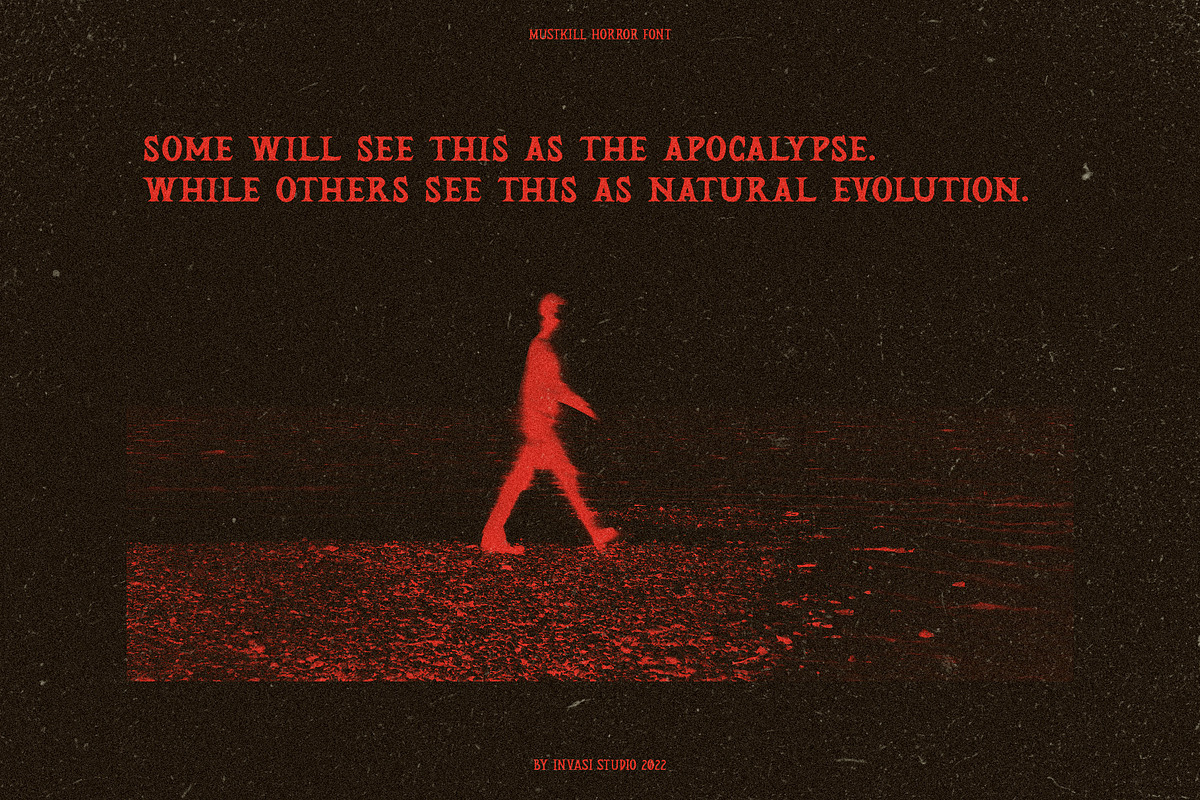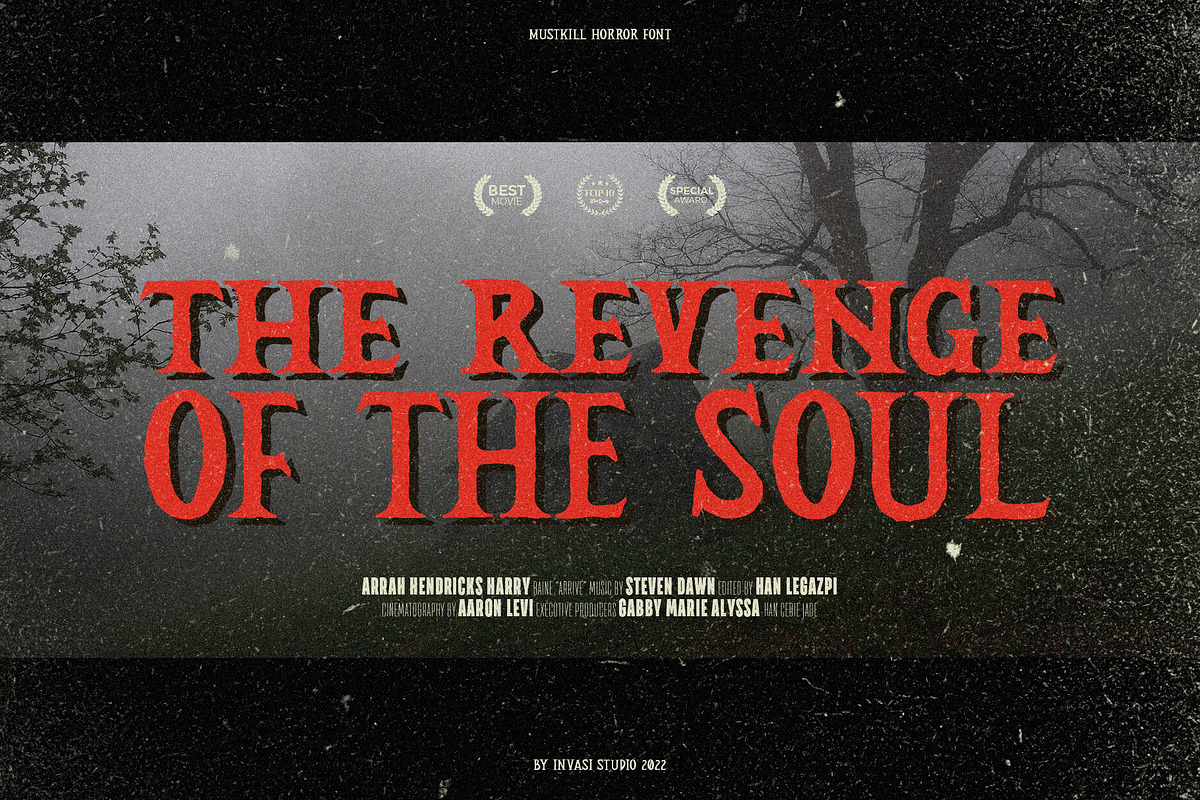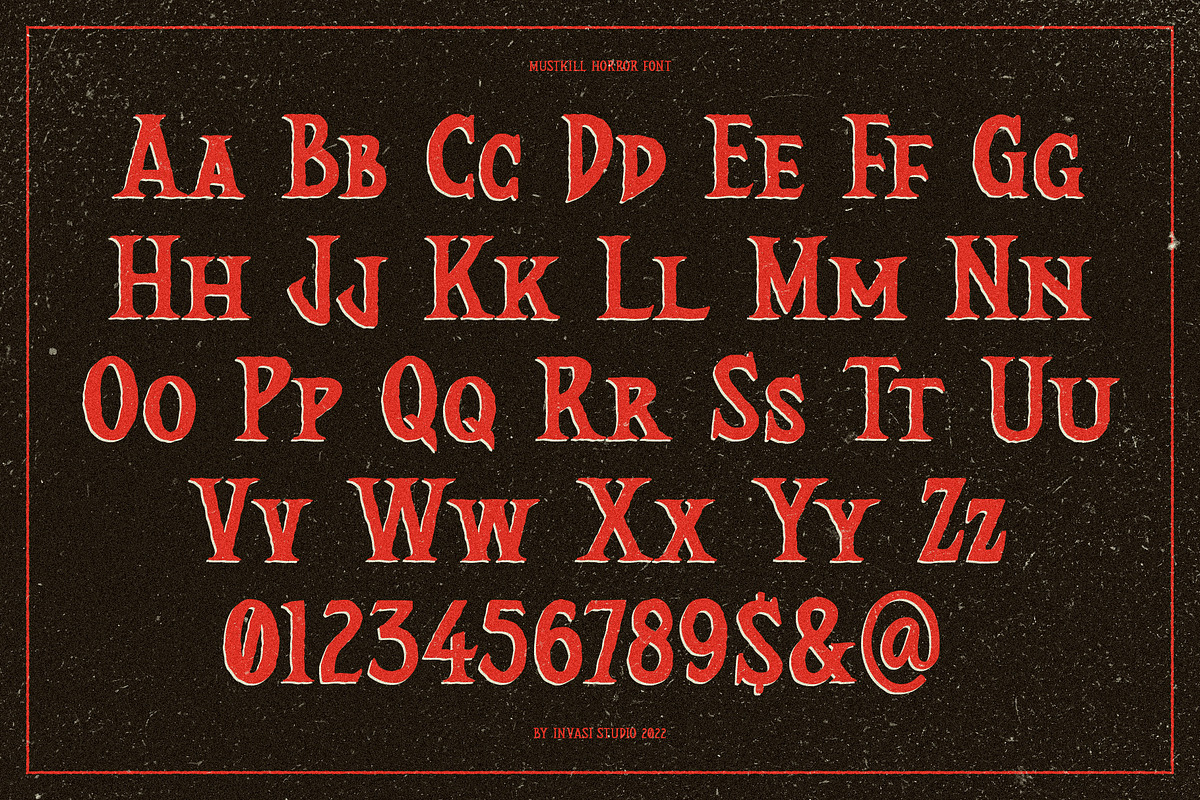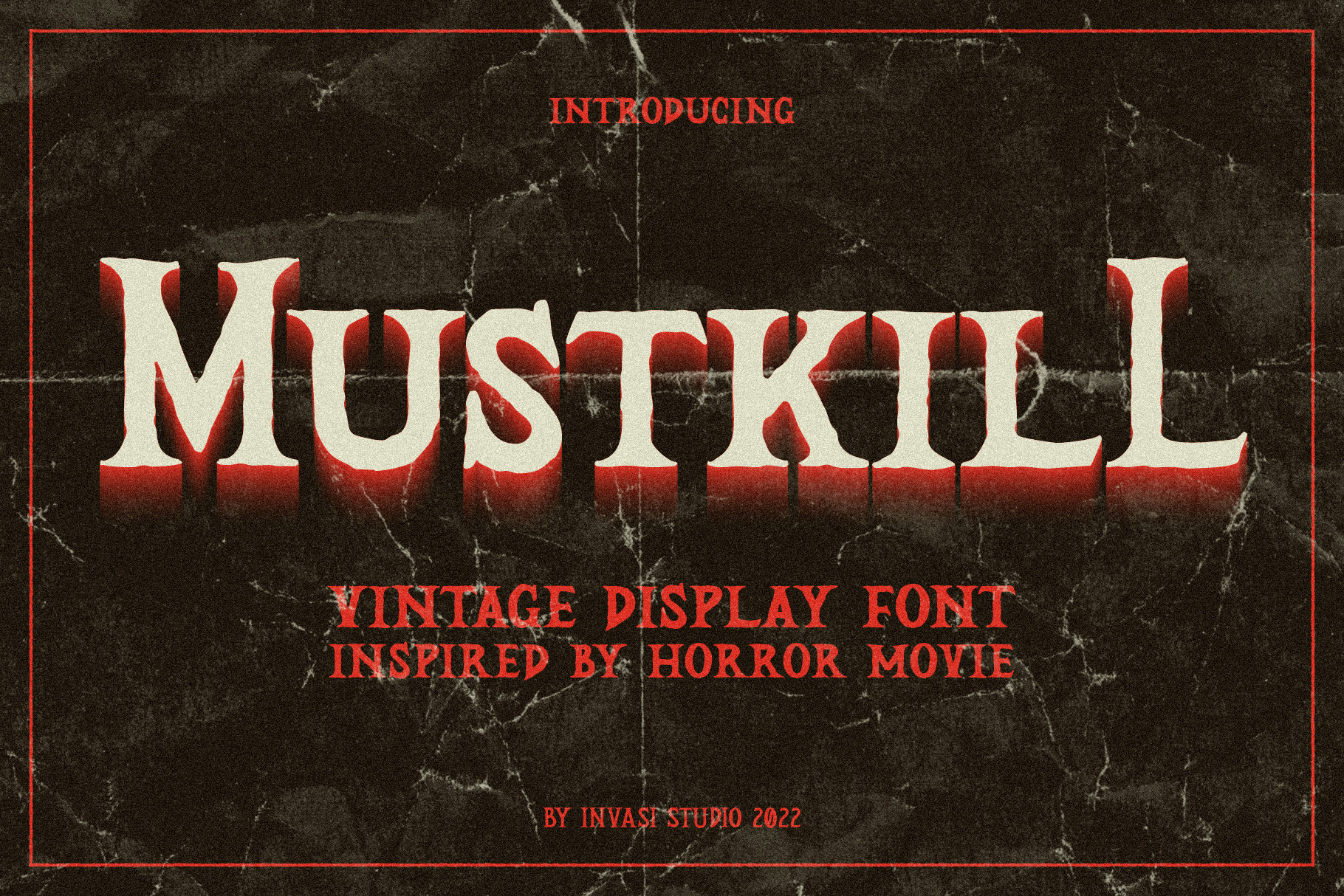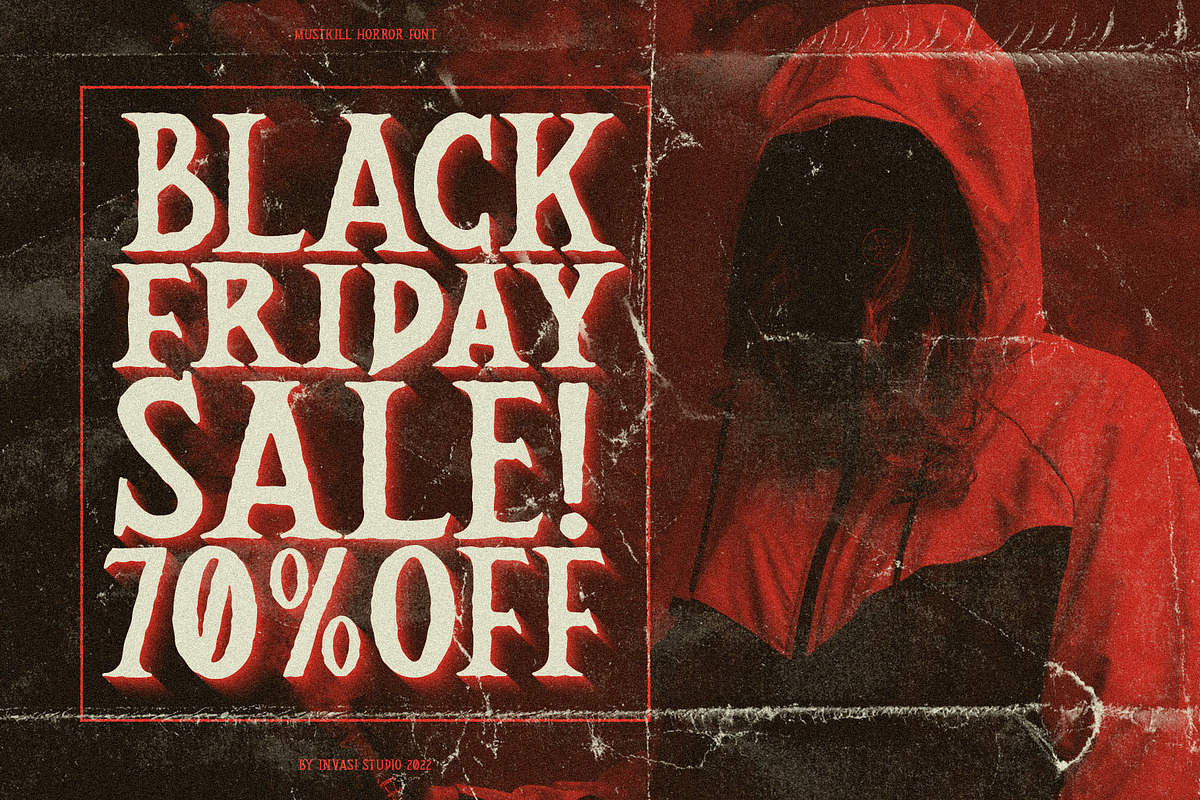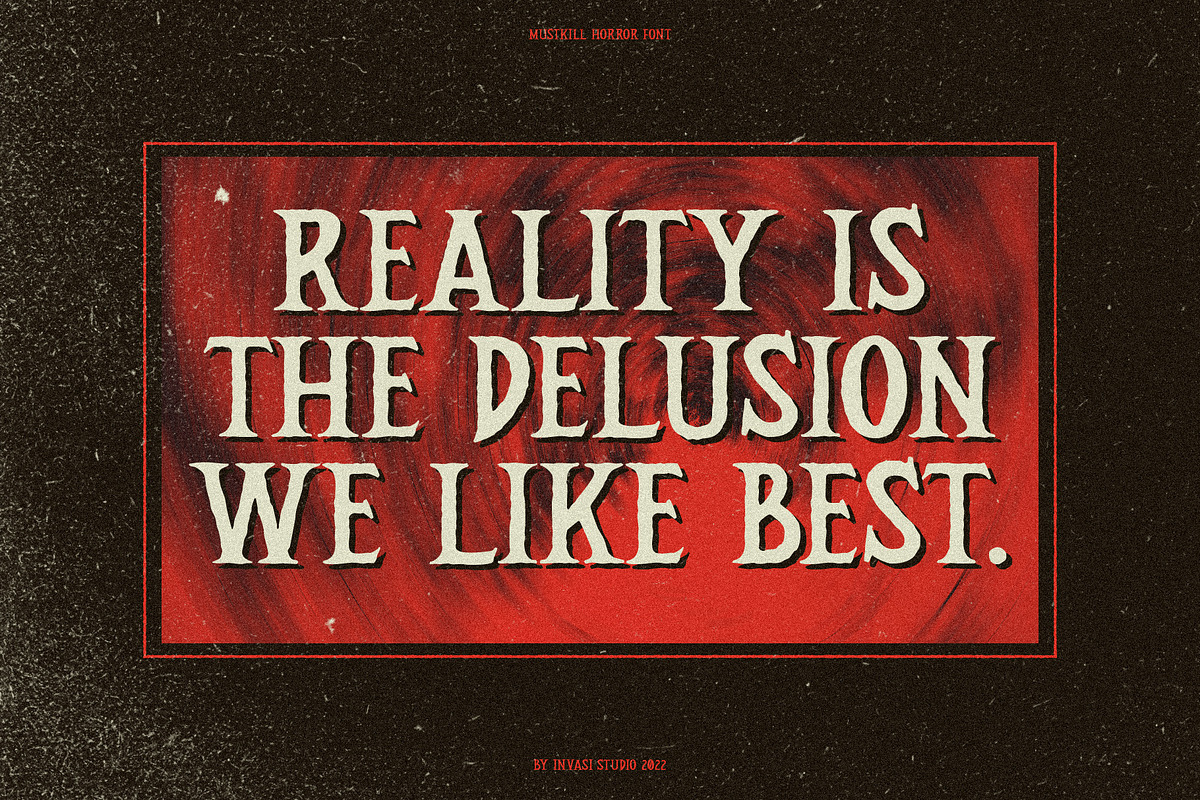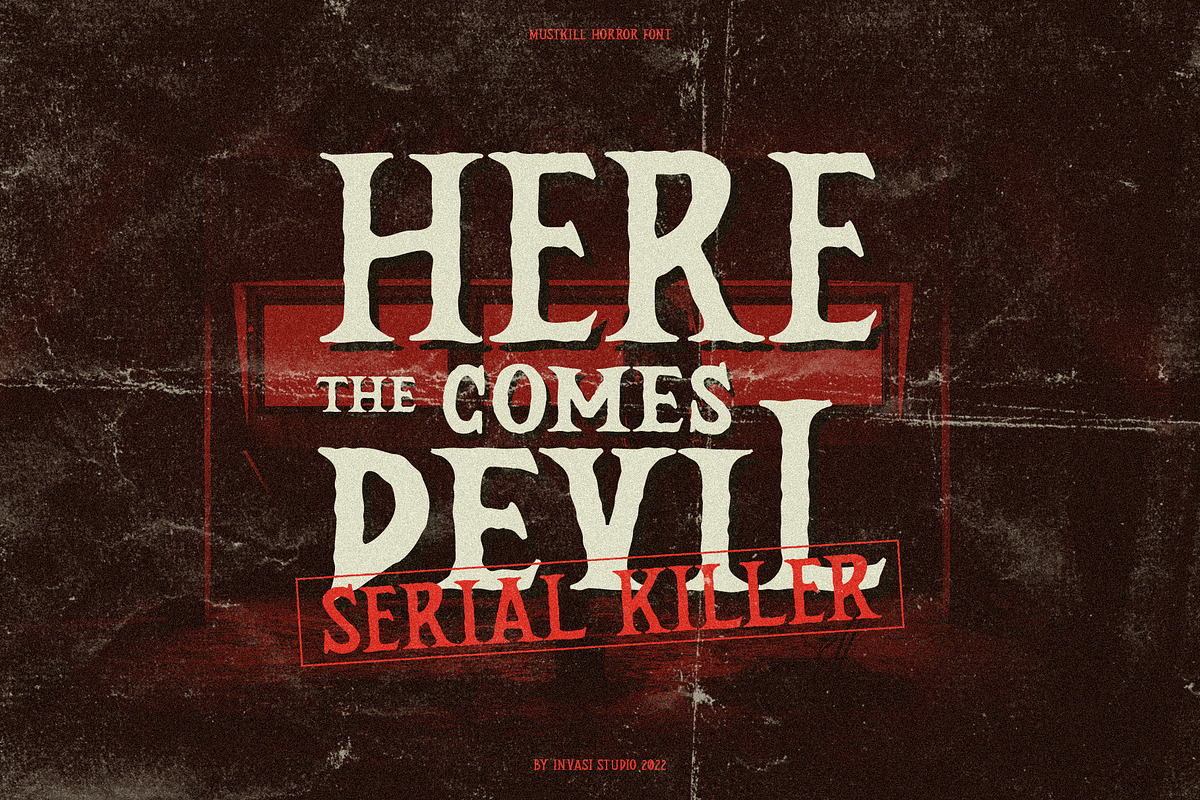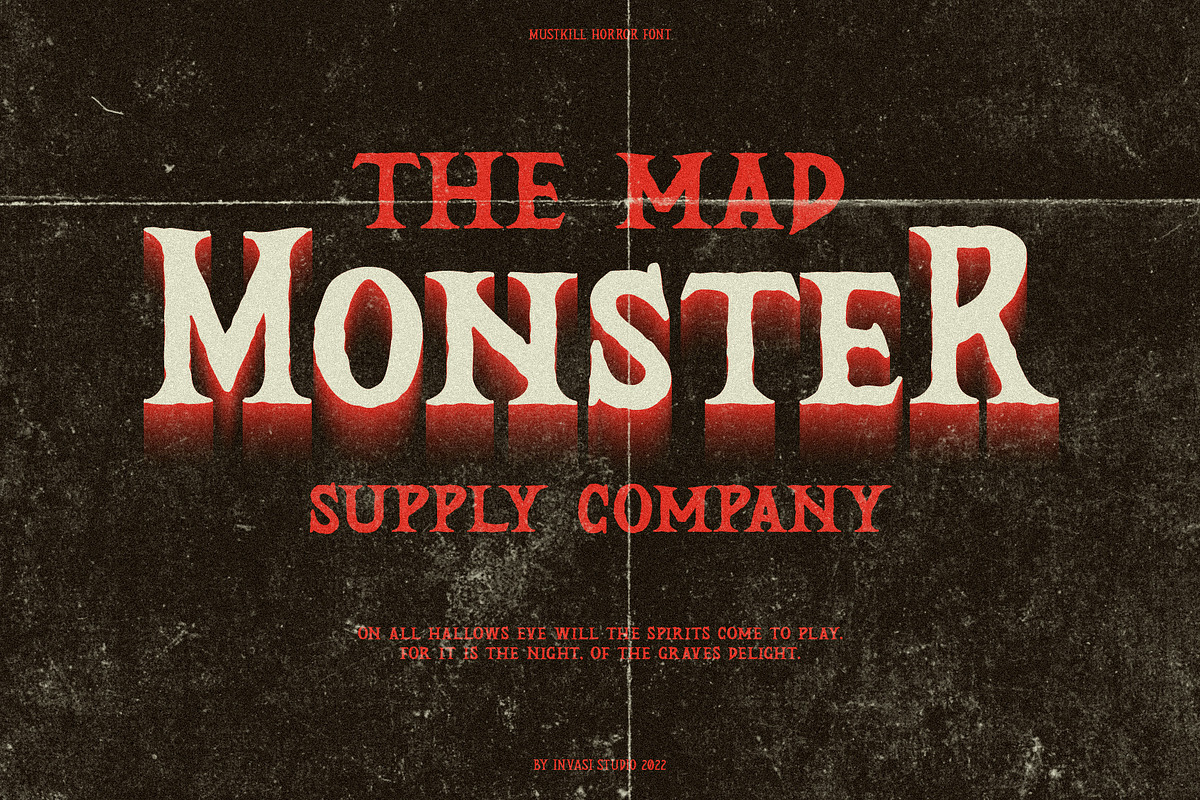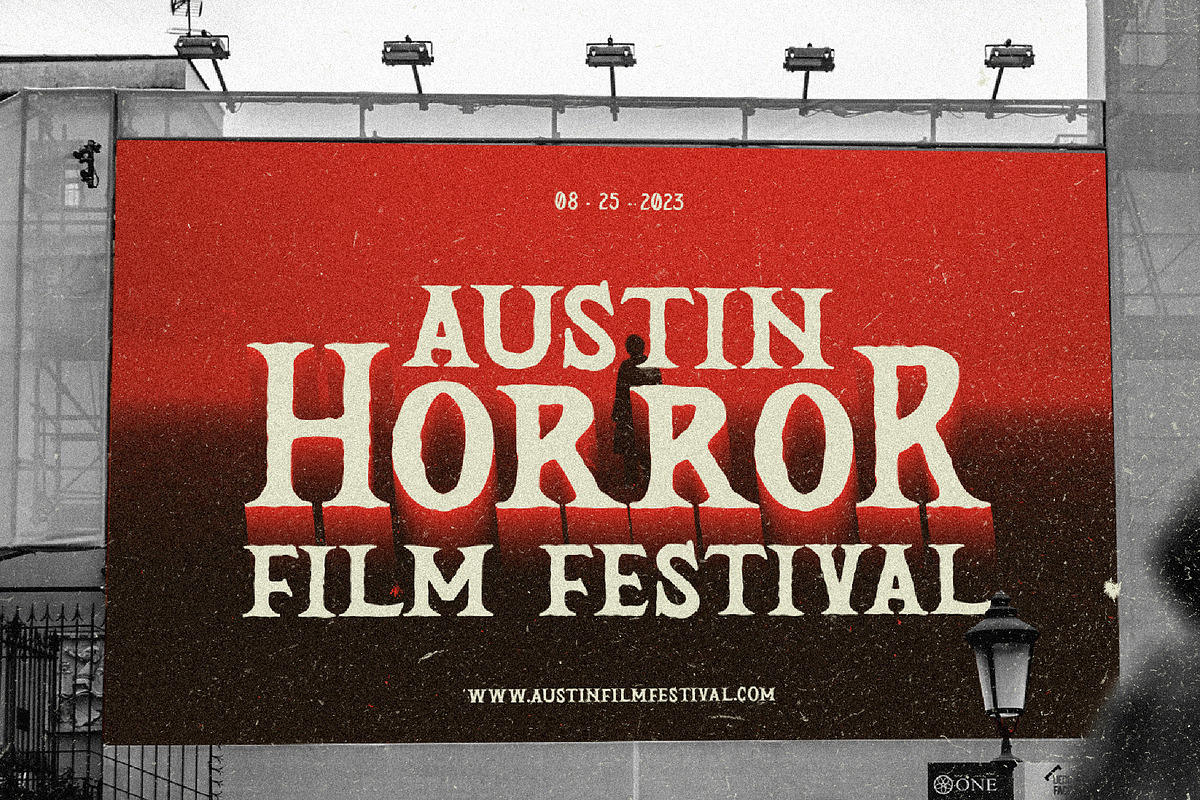
Mustkill - Vintage Horror Font
Taking inspiration from horror movie posters. Mustkill Font comes in rough detail and uppercase style. This font comes with angry and nightmare feelings. It's perfect for a poster, branding, logo, book cover, or Halloween promo.
- Total 201 Glyph
- Multilanguage Supports 60+ Latin-based languages
- Alternates & Ligature